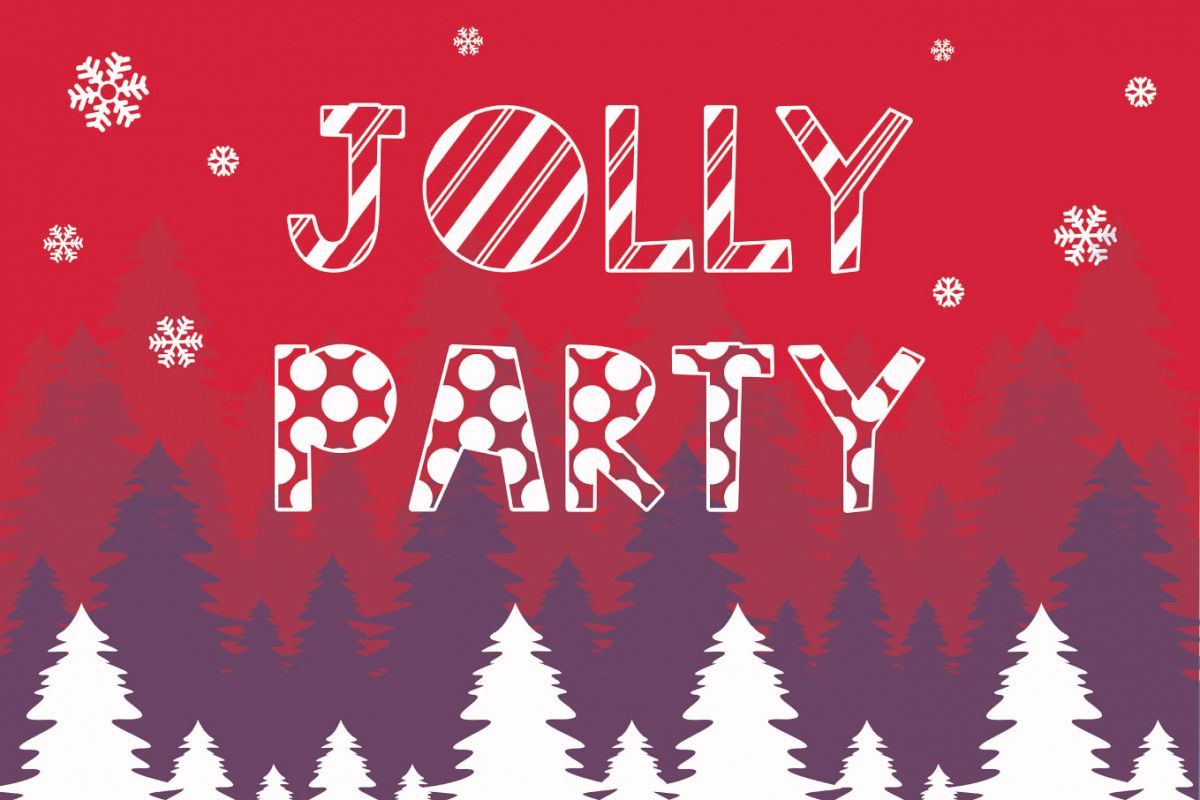
Use this fun Holiday font for all your festive craft projects! This font is perfect for Holiday party invites, t-shirts, mugs + more!
- Uppercase: A-Z - Striped
- Uppercase: A-Z - Polka Dot
- Numbers: 0-9 - Striped
- Standard Punctuation - Striped